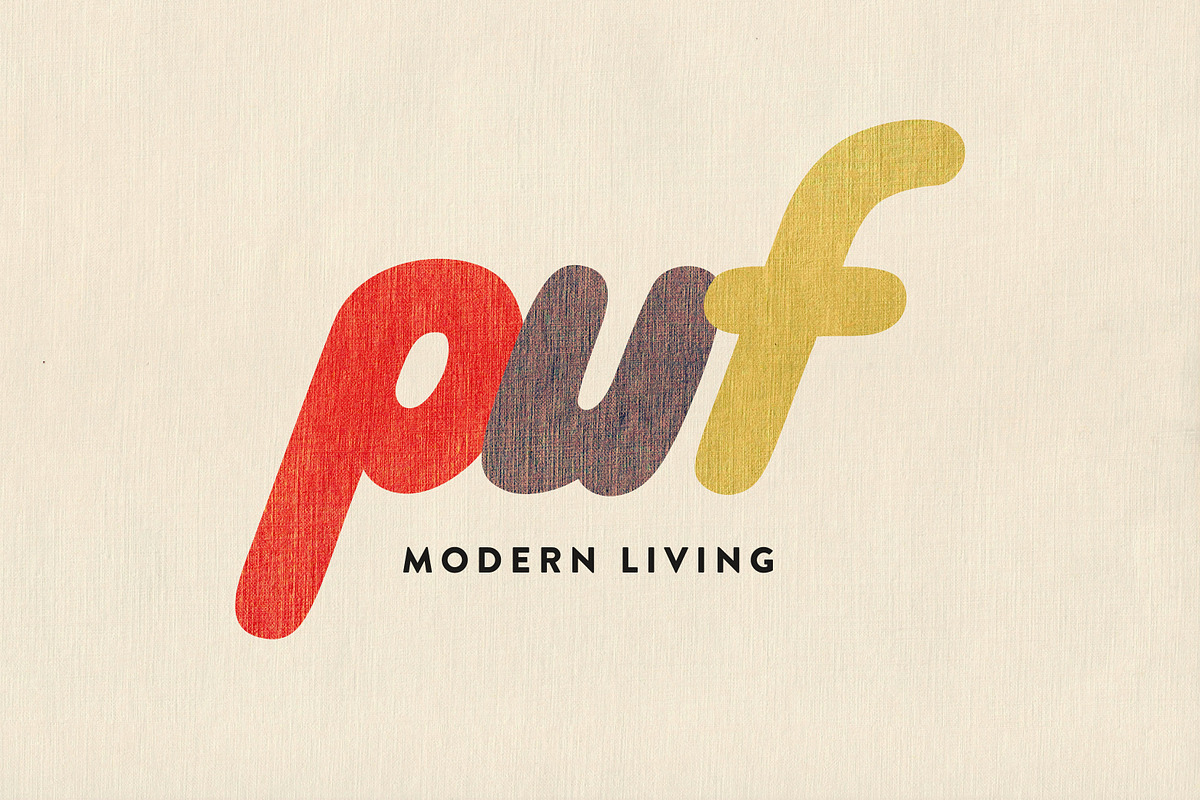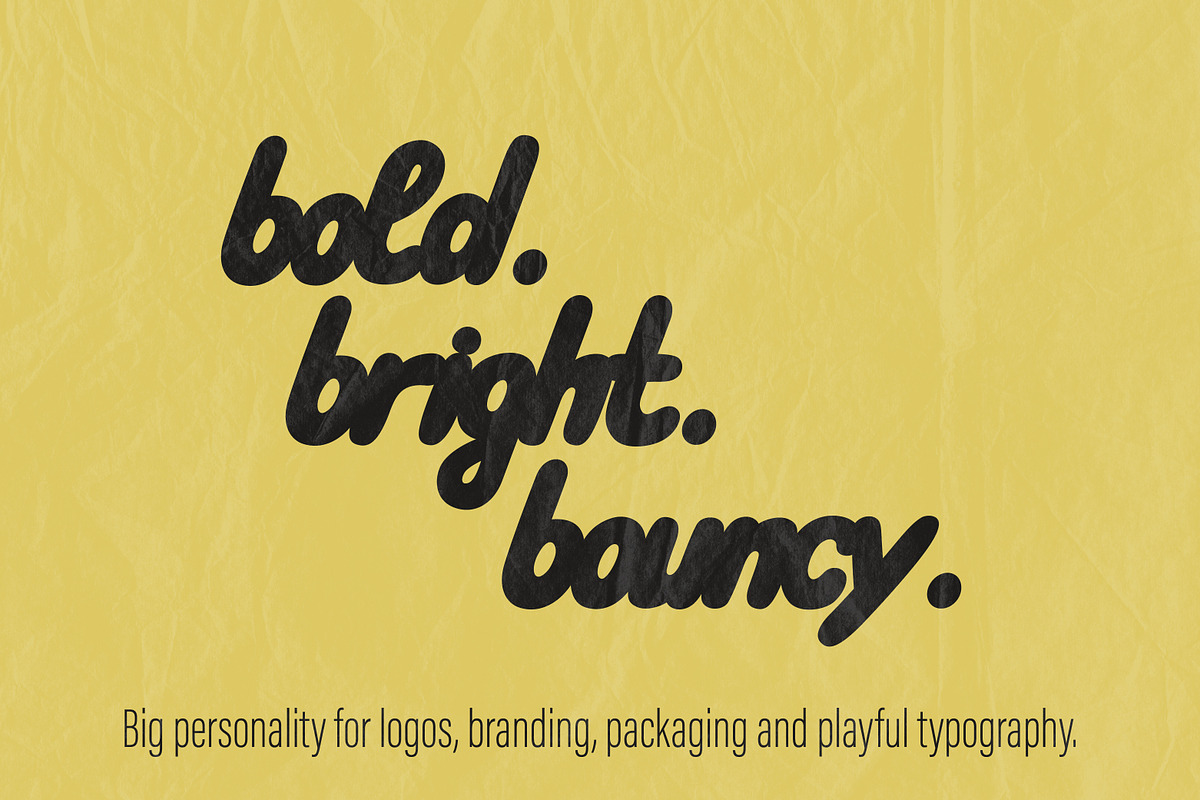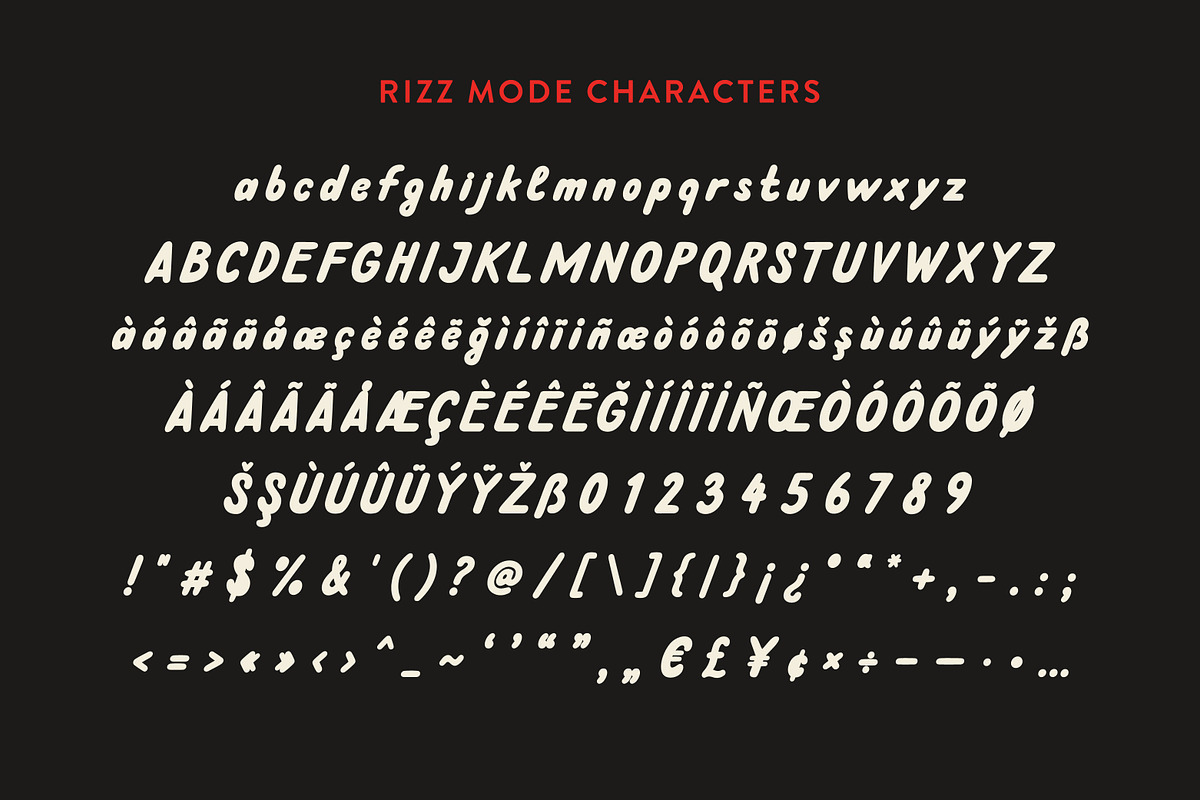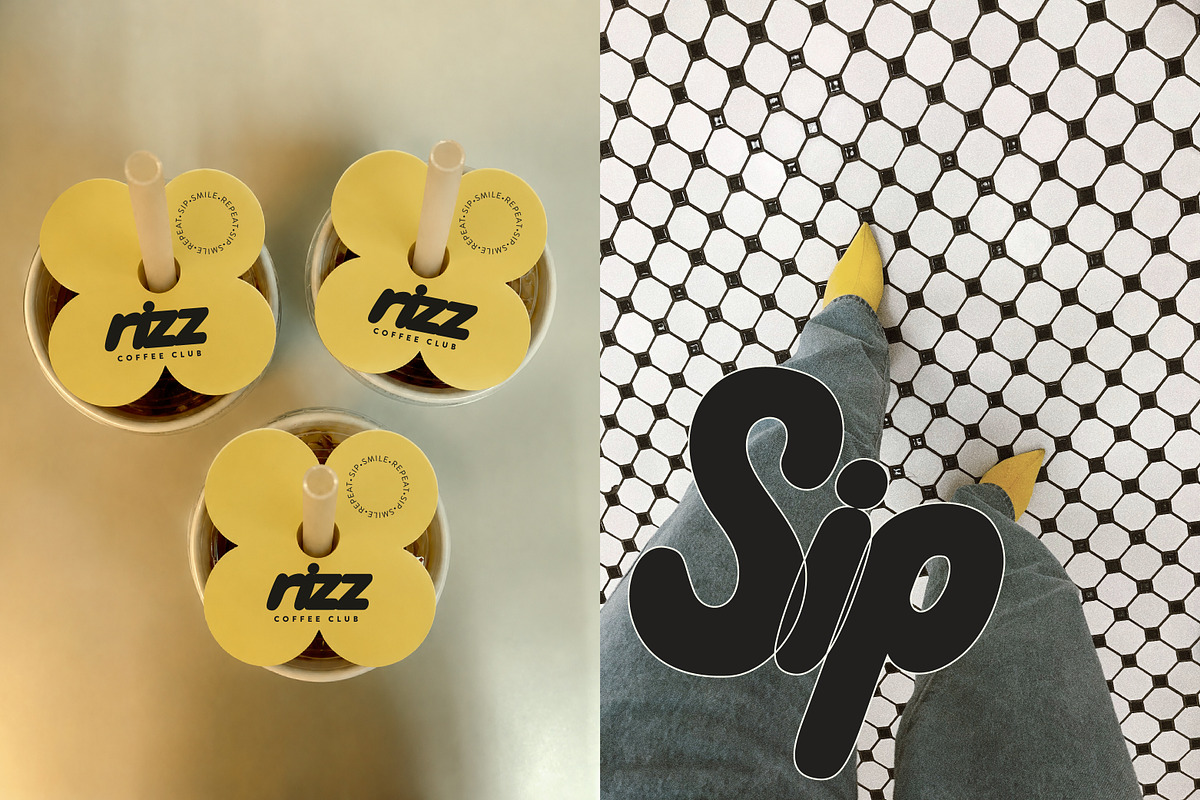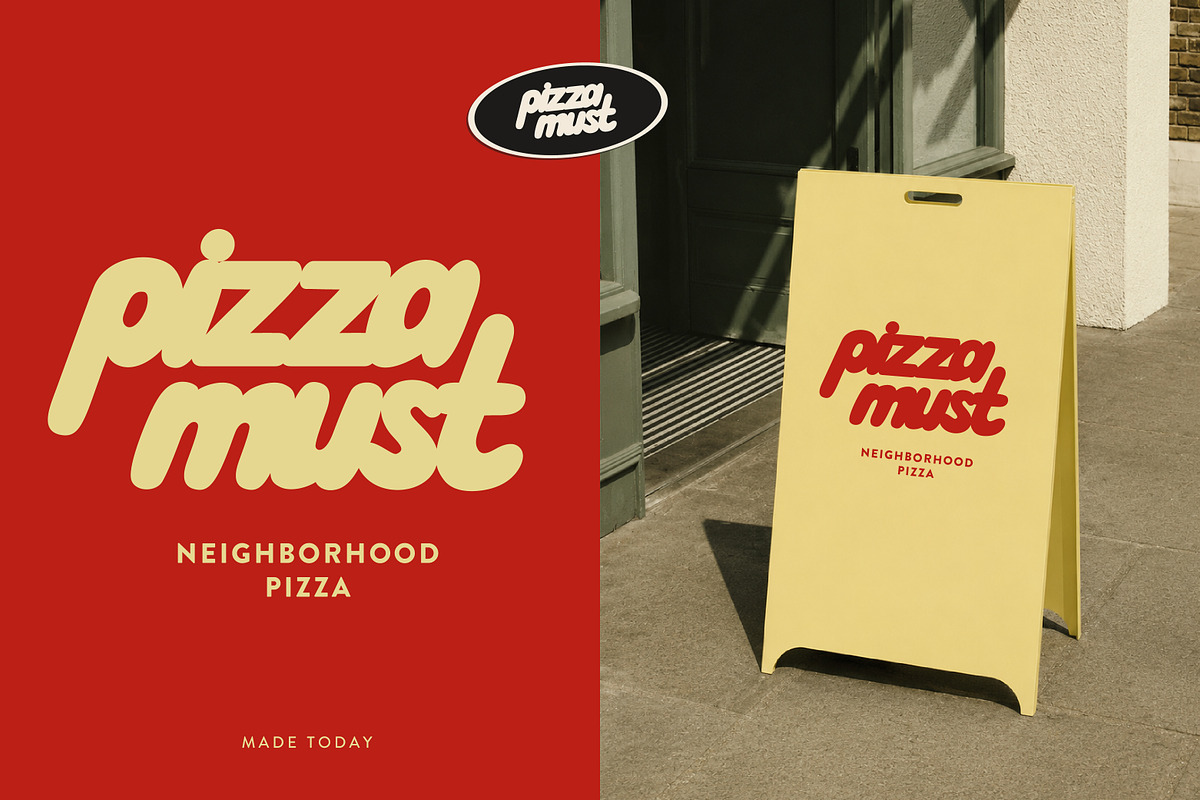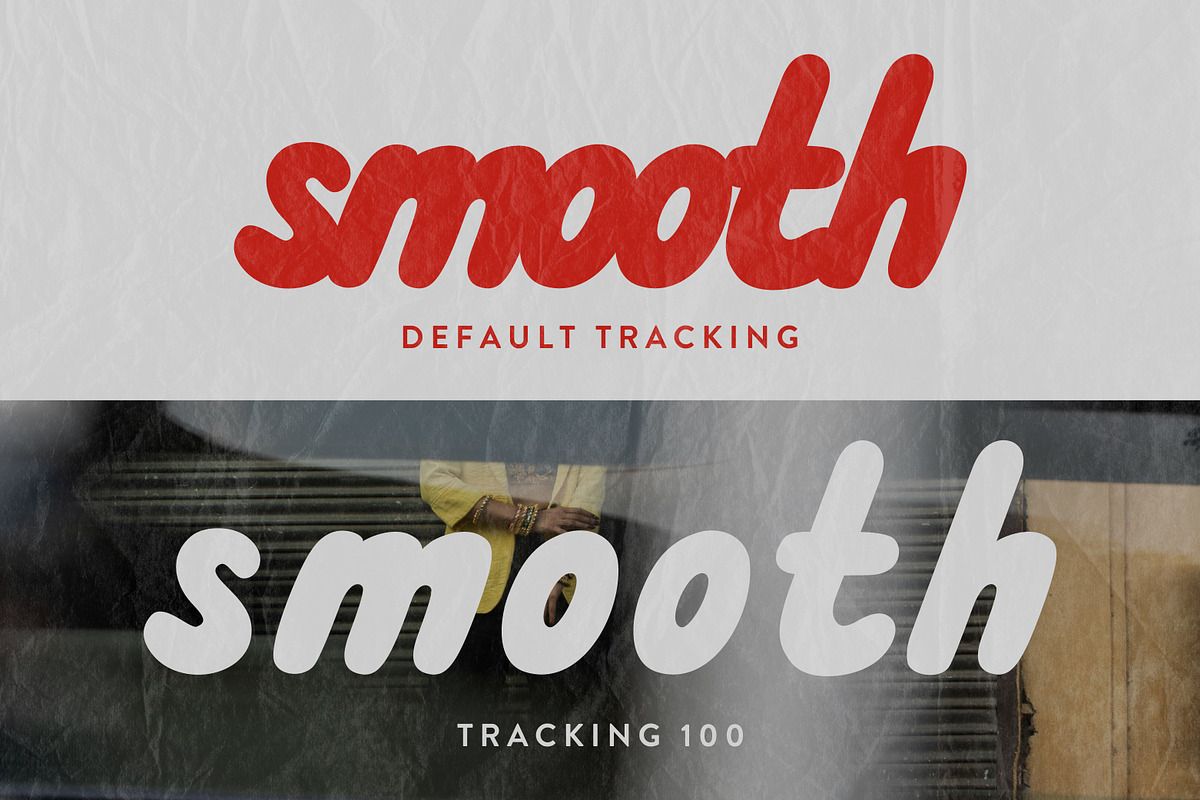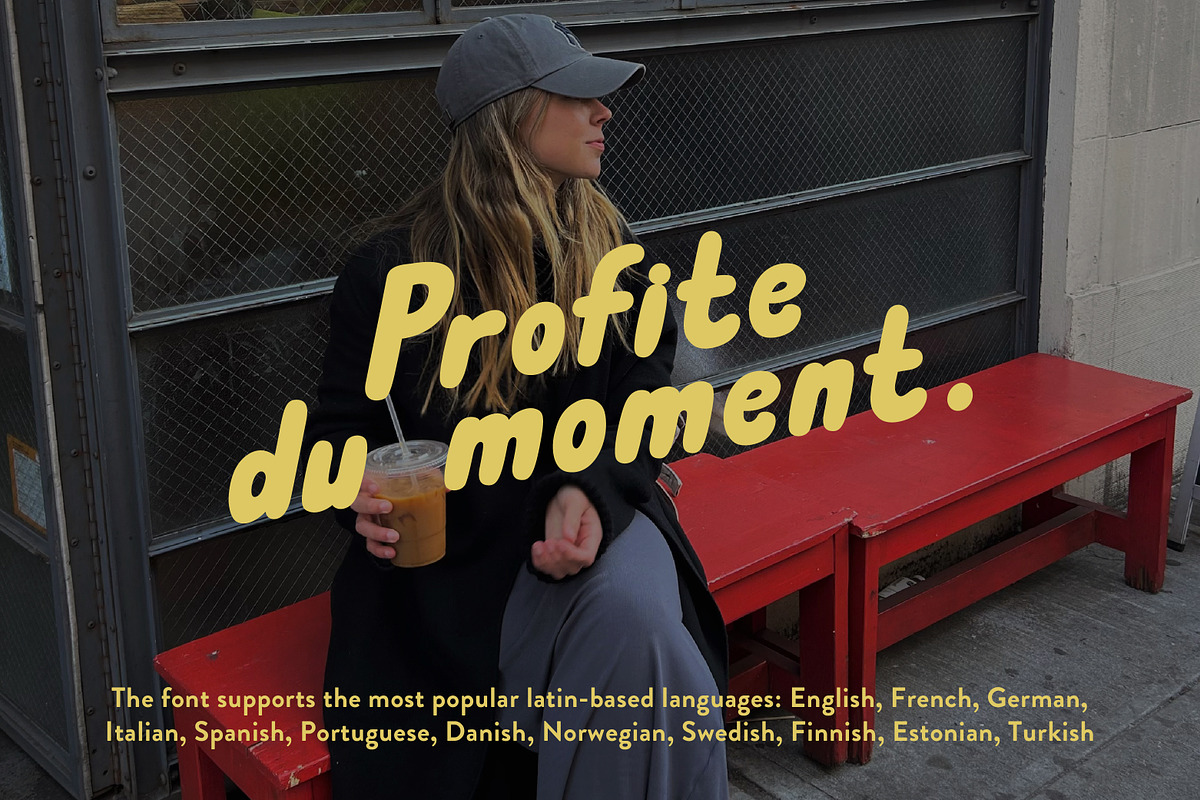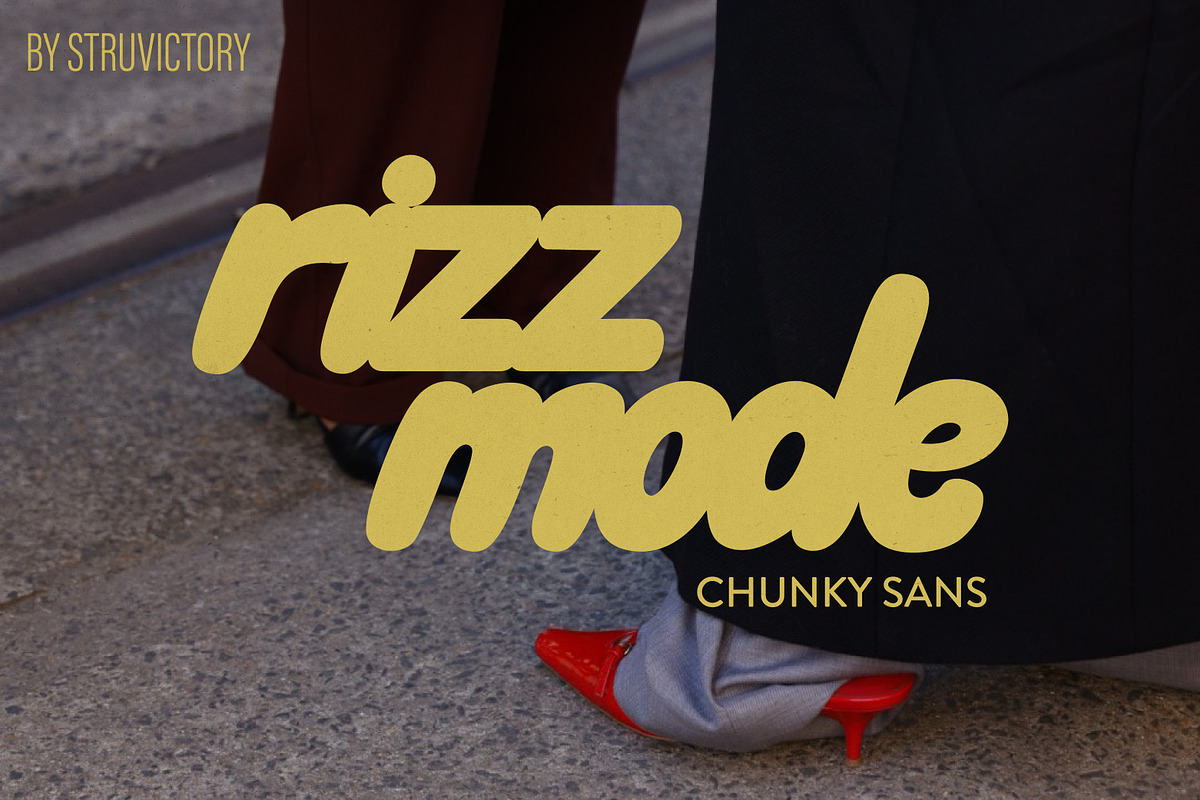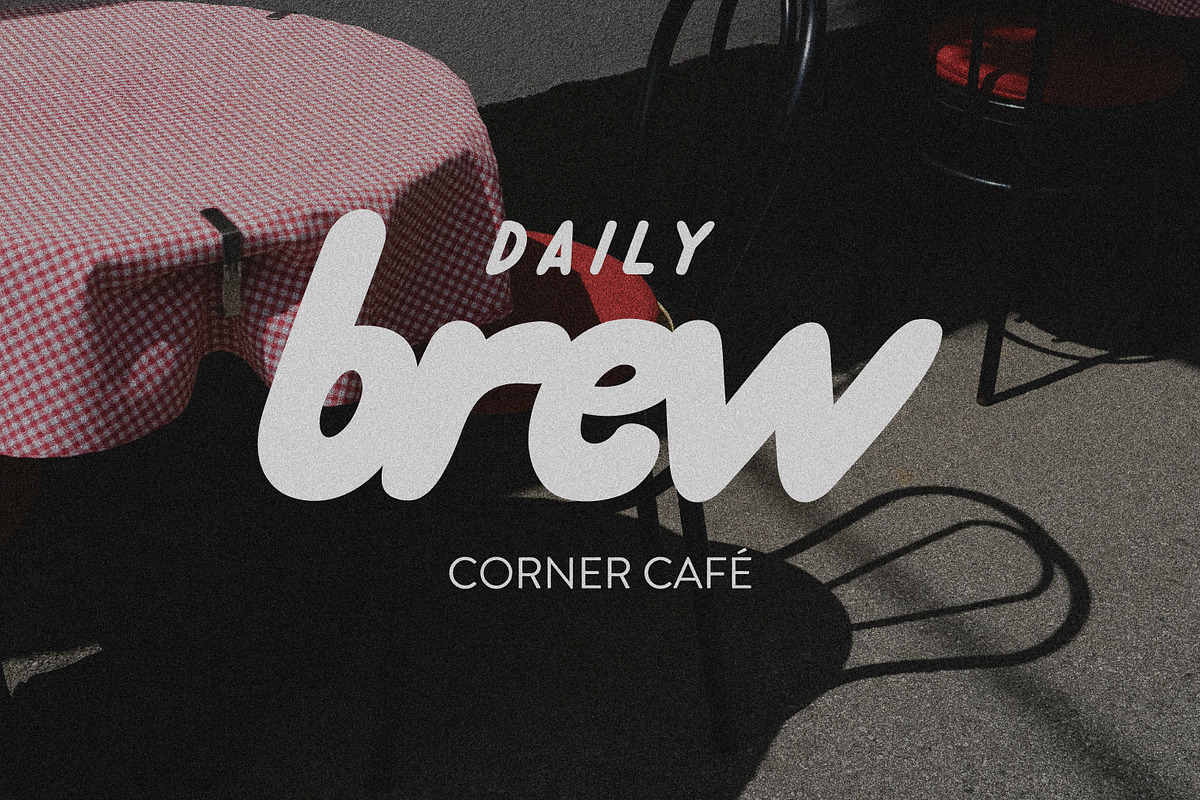
Rizz Mode Chunky Y2k Bubbly Sans
Rizz Mode is a chunky, bubbly sans-serif with a playful attitude and effortless charm. Inspired by café culture, colorful branding, and street-inspired aesthetics, it blends soft rounded shapes with confident, eye-catching forms. The bold rhythm makes it perfect for logos, food packaging, apparel, social media, posters, and bold headlines. Whether you're crafting a fun brand identity or simply adding personality to your next project, Rizz Mode delivers a fresh, contemporary look that's made to stand out.
Rizz Mode supports the most popular latin-based languages, you can check the symbol you need by typing a couple of words in the font preview box.